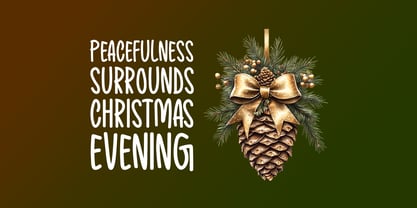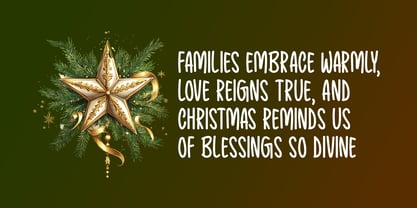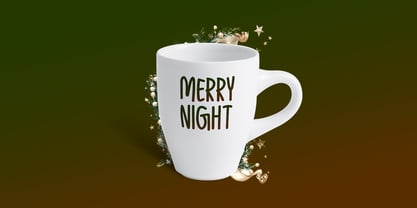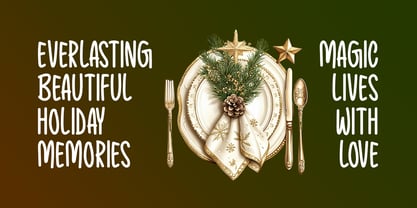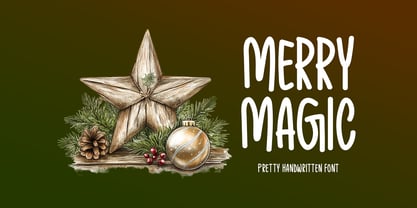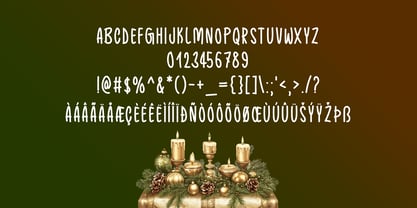
Merry Magic
von Seemly Fonts
Die Schriftfamilie Merry Magic wurde von Md. Sohail Bhuiyan entworfen und von Seemly Fonts veröffentlicht. Merry Magic enthält 1 Stile. Mehr über diese Familie
Merry Magic is a charming handwritten font that captures the spirit of celebration and creativity. With its smooth flow and playful elegance, it is a wonderful choice for stationery, logos, apparel, invitations, website headers, posters, music covers, and more. Perfect for festive projects or everyday designs, Merry Magic adds a personal and joyful touch that makes every creation feel warm and inviting.
Designer: Md. Sohail Bhuiyan
Foundry: Seemly Fonts